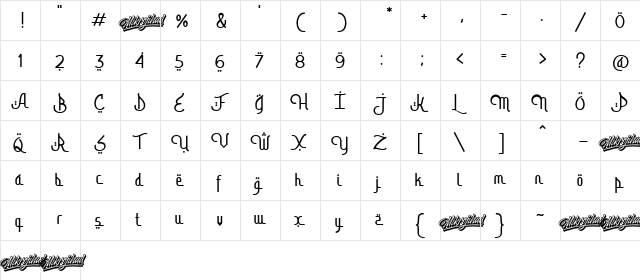
Bismillah Script Regular
| Foundry | Hendra Pratama - Mikrojihad Studio |
| Designer | Hendra Pratama (Mikrojihad) |
Design Context for Bismillah Script Typeface
Bismillah Script flows with the natural rhythm of handwritten lettering, making it ideal for designs that call for warmth and personal expression.